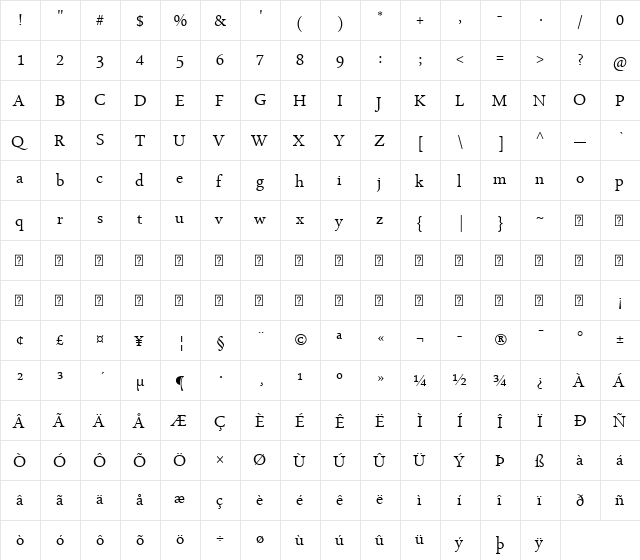
Arabic Typesetting Regular
| Designer | Mamoun Sakkal, Paul C. Nelson and John Hudson |
Design Context for Arabic Typesetting Typeface
Arabic Typesetting takes a measured approach to typography — its balanced proportions and neutral character make it a reliable workhorse for both digital and print work.